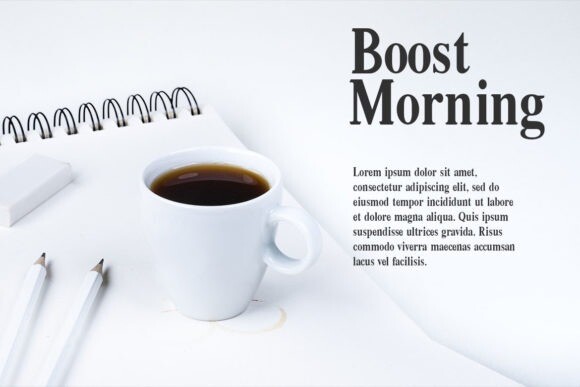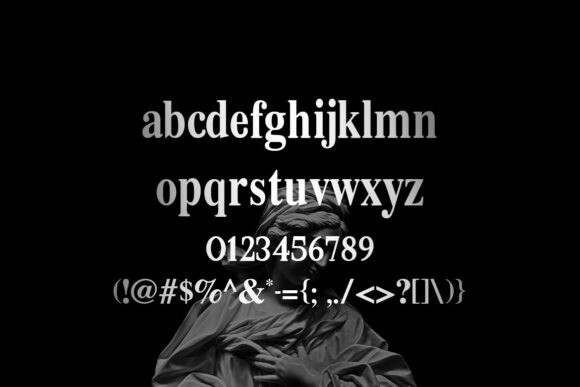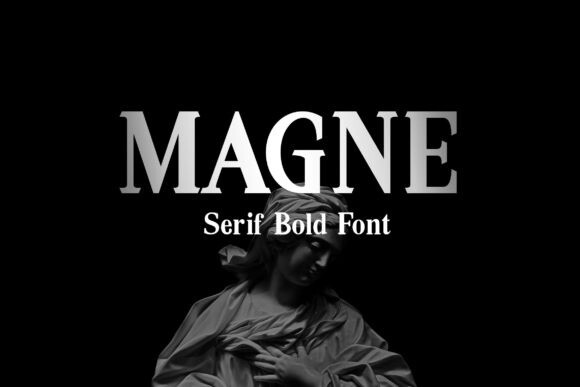
Magne – Serif Bold Font
Magne is a simple and modern serif family font. This minimalist and clean font can easily become your favorite. It can be used for books, magazines, social media posts, invitations, and so much more! So add this to your creations and take your designs to the next level!